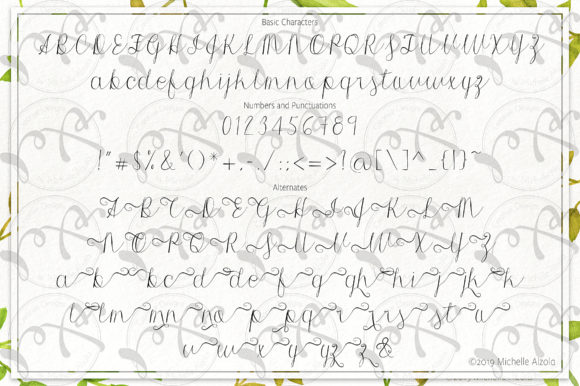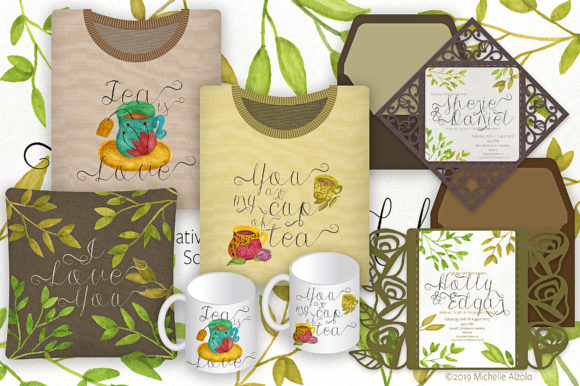
Introduction to Morri Belle Script Font
The Morri Belle is a pretty handwritten font.
It has a playful, yet elegant touch which can be used for invitations, greeting cards, branding, cut projects and a lot more .